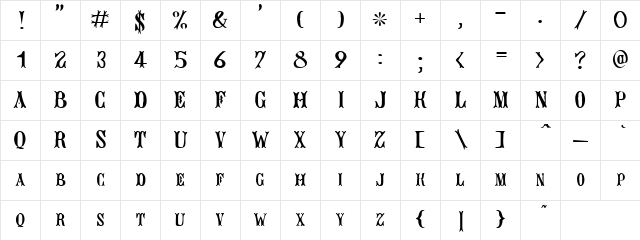
Cargeer Killer Regular Free Font
Cargeer Killer Regular
Complete Cargeer Killer Regular glyph index. Displaying only characters natively supported by Cargeer Killer Regular font.
Design Context for Cargeer Killer
Cargeer Killer is a composed and adaptable typeface that performs quietly and consistently across a wide range of design contexts.